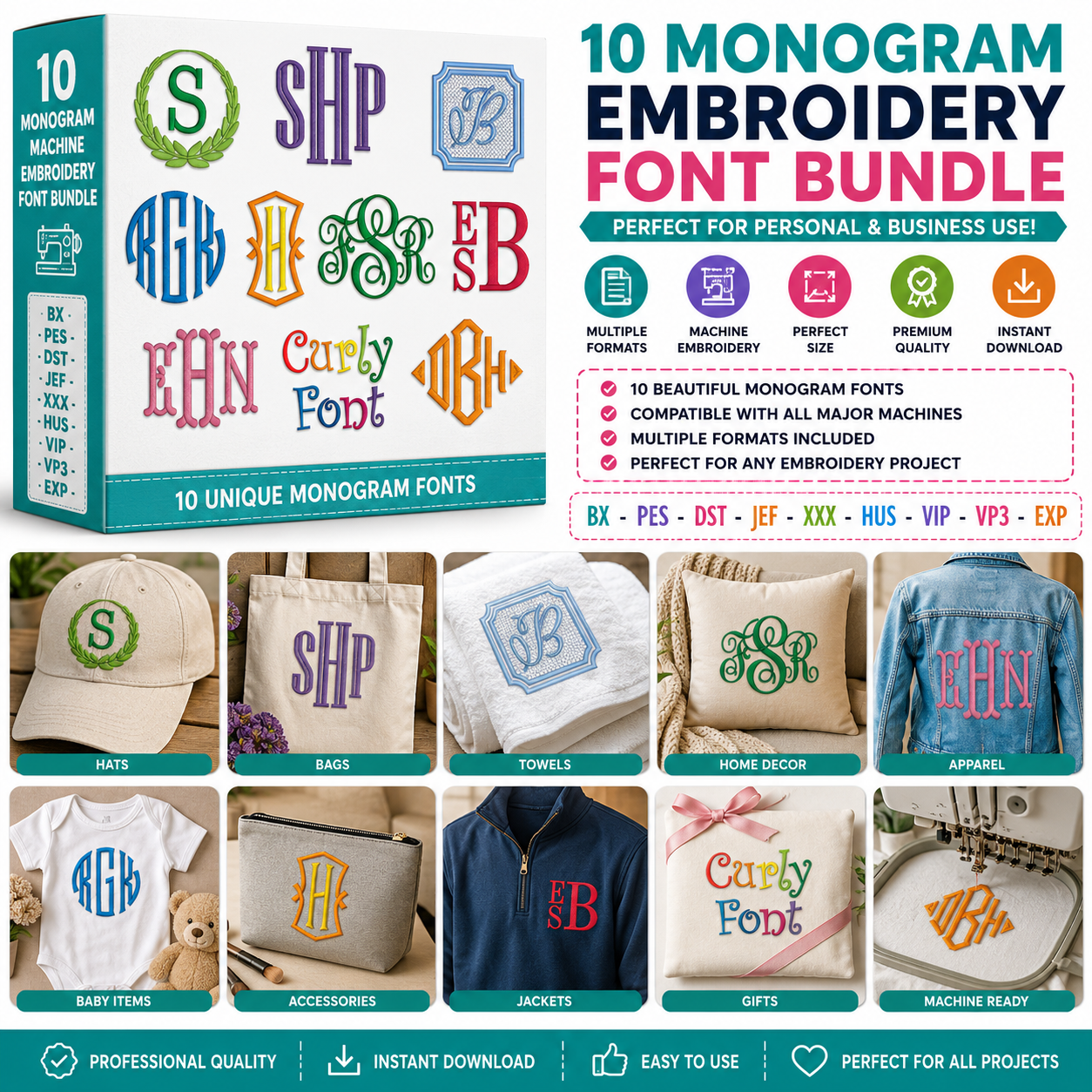
Embroidery Fonts Bundle – Monogram Machine Embroidery Designs Multiple Formats
Take your embroidery projects to the next level with our comprehensive embroidery fonts bundle. This extensive collection brings together beautifully crafted monogram machine embroidery designs in multiple formats, giving you endless creative possibilities whether you’re personalizing gifts, creating custom apparel, or adding elegant touches to home décor items.
What’s Included in Your Embroidery Bundle
The monogram designs span various styles, from classic and elegant to modern and playful. Mix and match letters to create personalized combinations, or use the complete designs as they are. Every file is optimized for clean, crisp stitching at multiple sizes, giving you flexibility to embroider on everything from tiny baby bibs to large tote bags.
Perfect for Personalization Projects and Custom Gifts
One of the biggest advantages of having an embroidery fonts bundle in your creative arsenal is the ability to quickly personalize items. Custom monogrammed gifts are always appreciated, and with these professionally designed fonts, your work will look polished and impressive. Create matching sets for bridesmaids, personalize nursery décor, or add elegant monograms to pillowcases and linens.
The diverse range of letterforms within this collection means you can match your design style to any project aesthetic. Prefer ornate, vintage-inspired lettering? You’ve got options. Looking for clean, contemporary fonts? They’re here too. This versatility makes the bundle an investment that keeps giving across countless future projects.